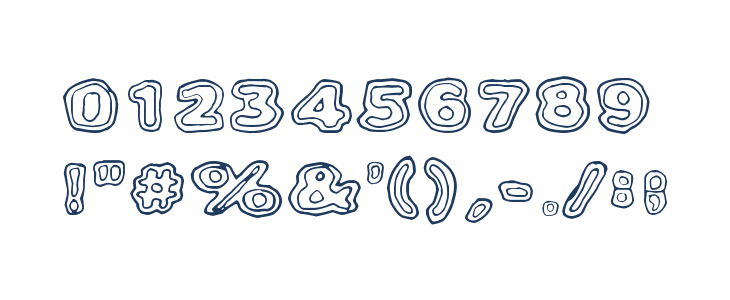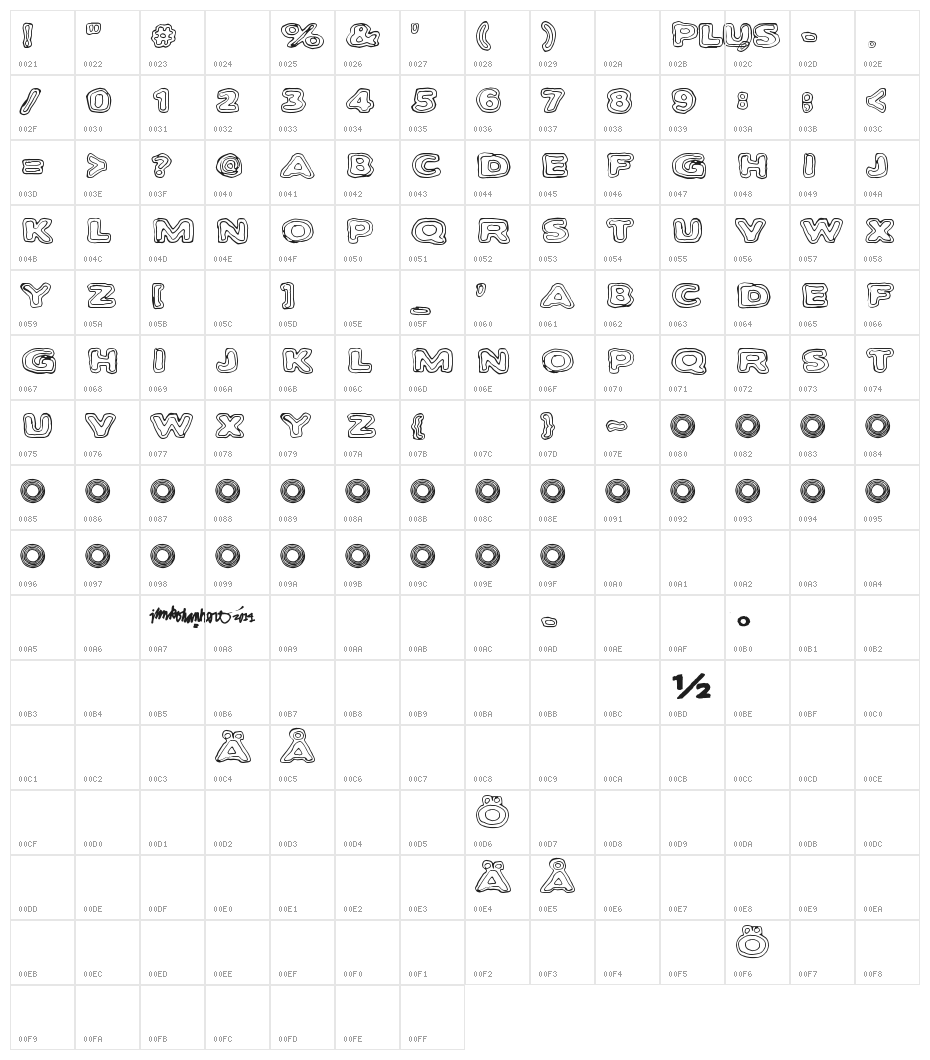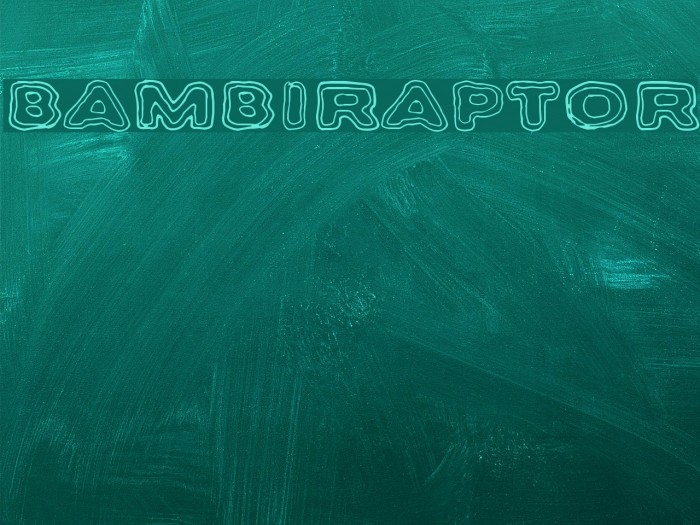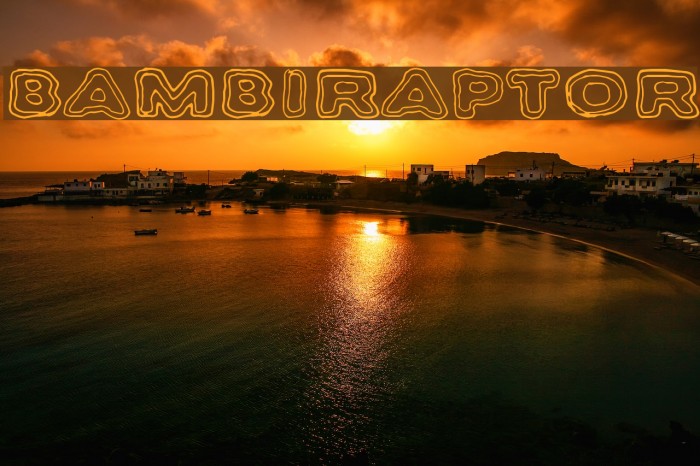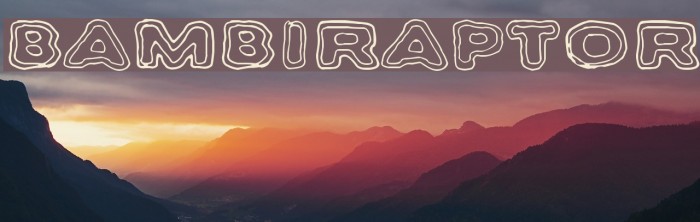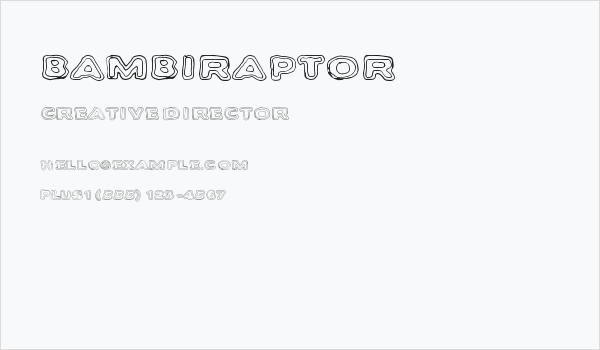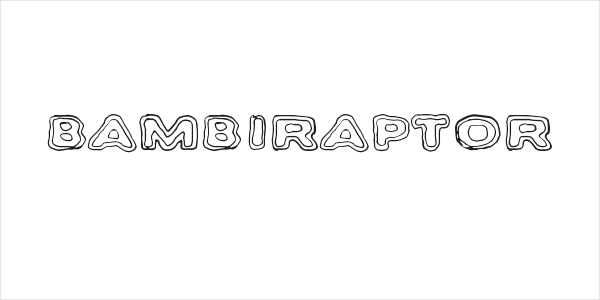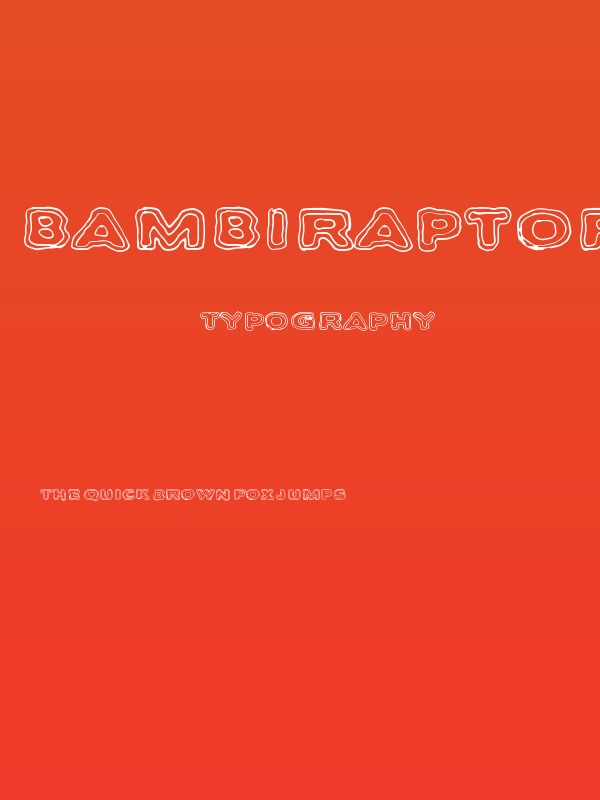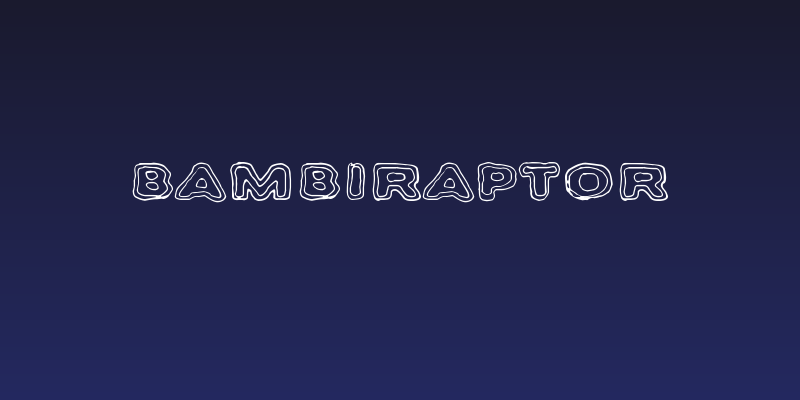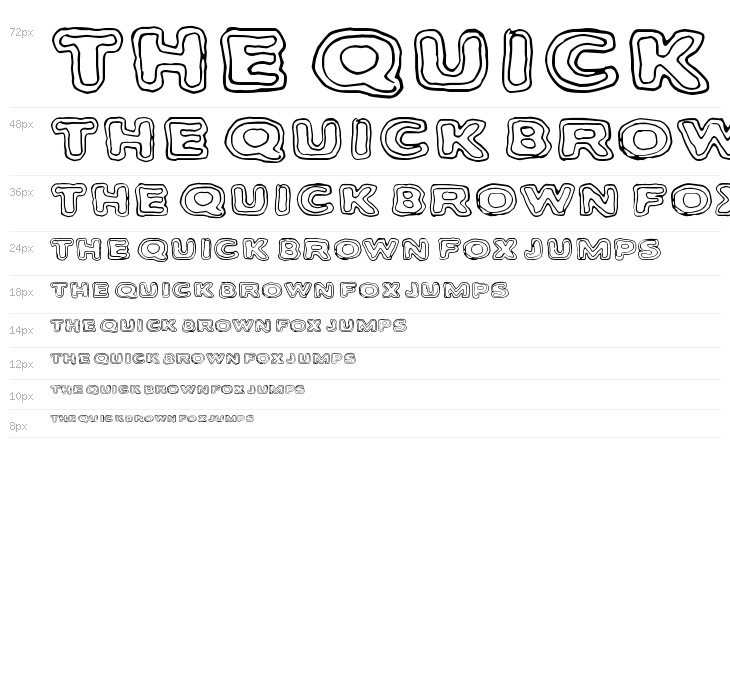
Bambiraptor Font
Bambiraptor Description
This font features a playful and bold outline style, characterized by thick, rounded edges and a double-layered effect that gives it a three-dimensional appearance. The letters are uppercase and lowercase, with a consistent width and a slightly whimsical, cartoonish feel. The numbers and special characters maintain the same playful aesthetic, making it suitable for creative and informal designs. The font's unique style is eye-catching and adds a fun, dynamic element to any project.
| Overall Style | Playful, Cartoonish |
| Proposed Projects | Ideal for children's books, playful branding, posters, and party invitations. |